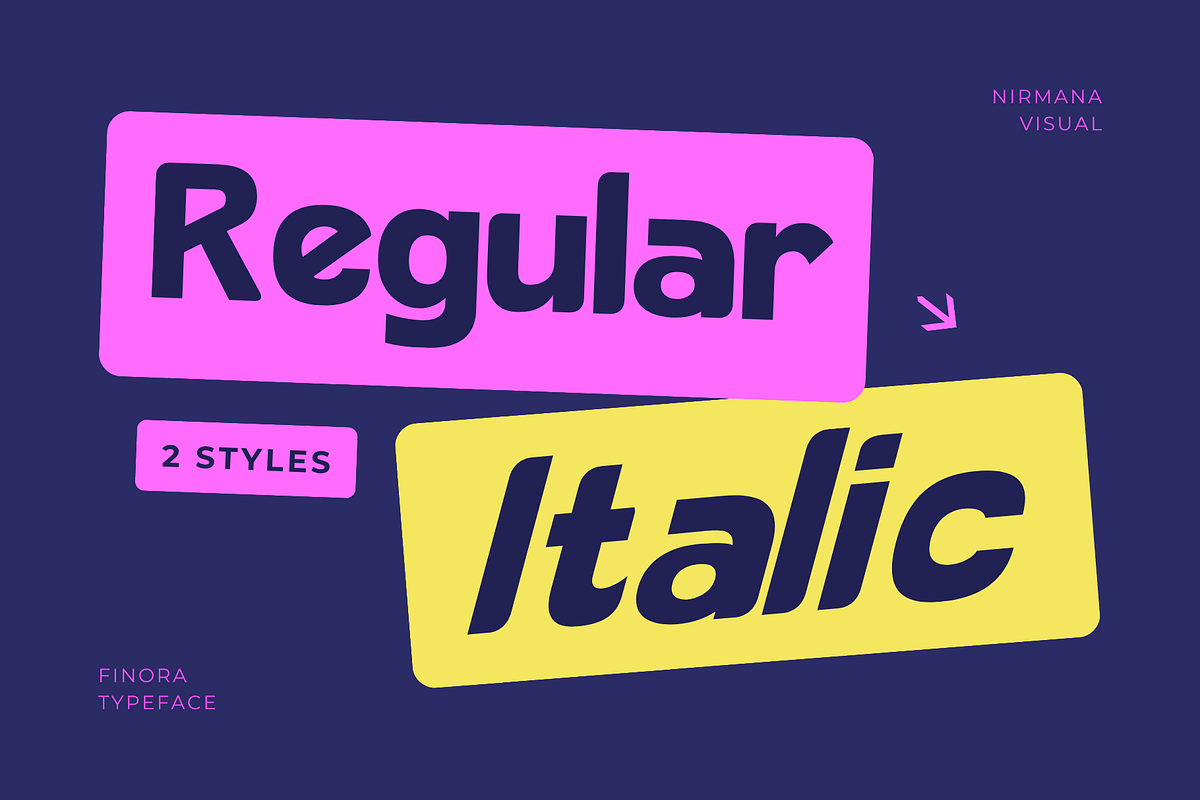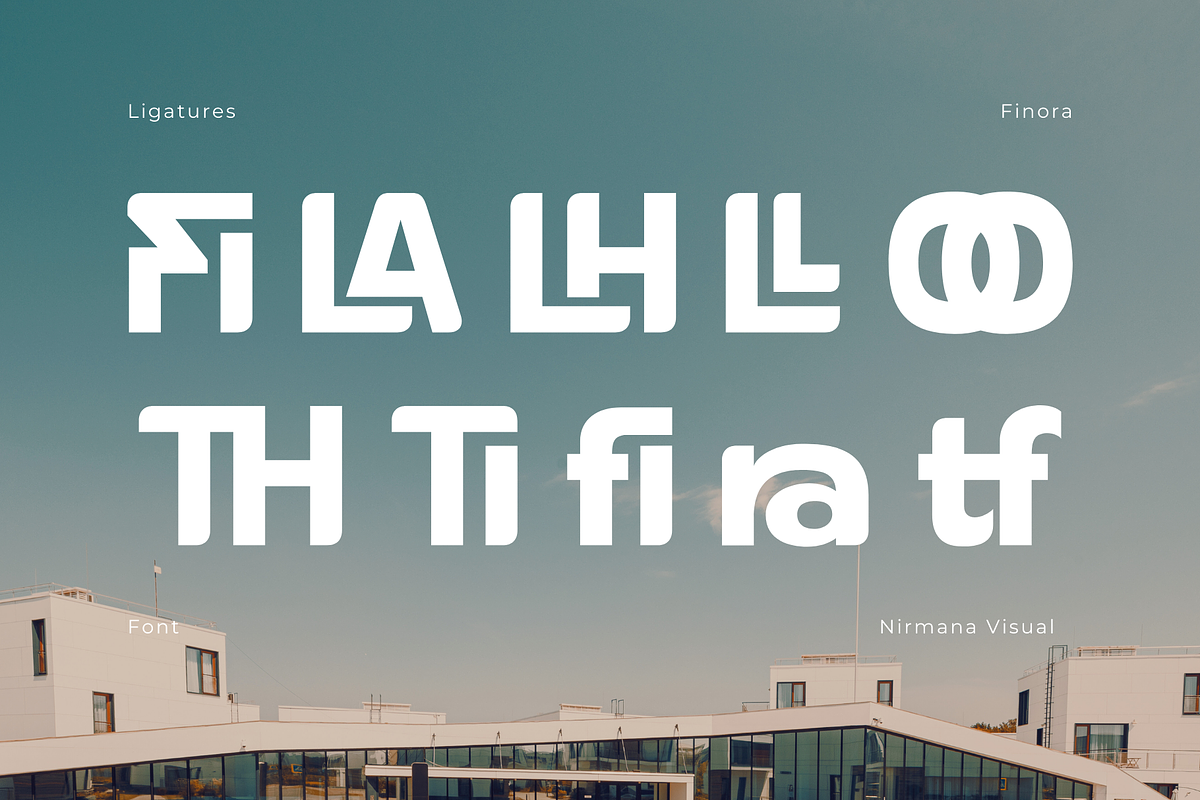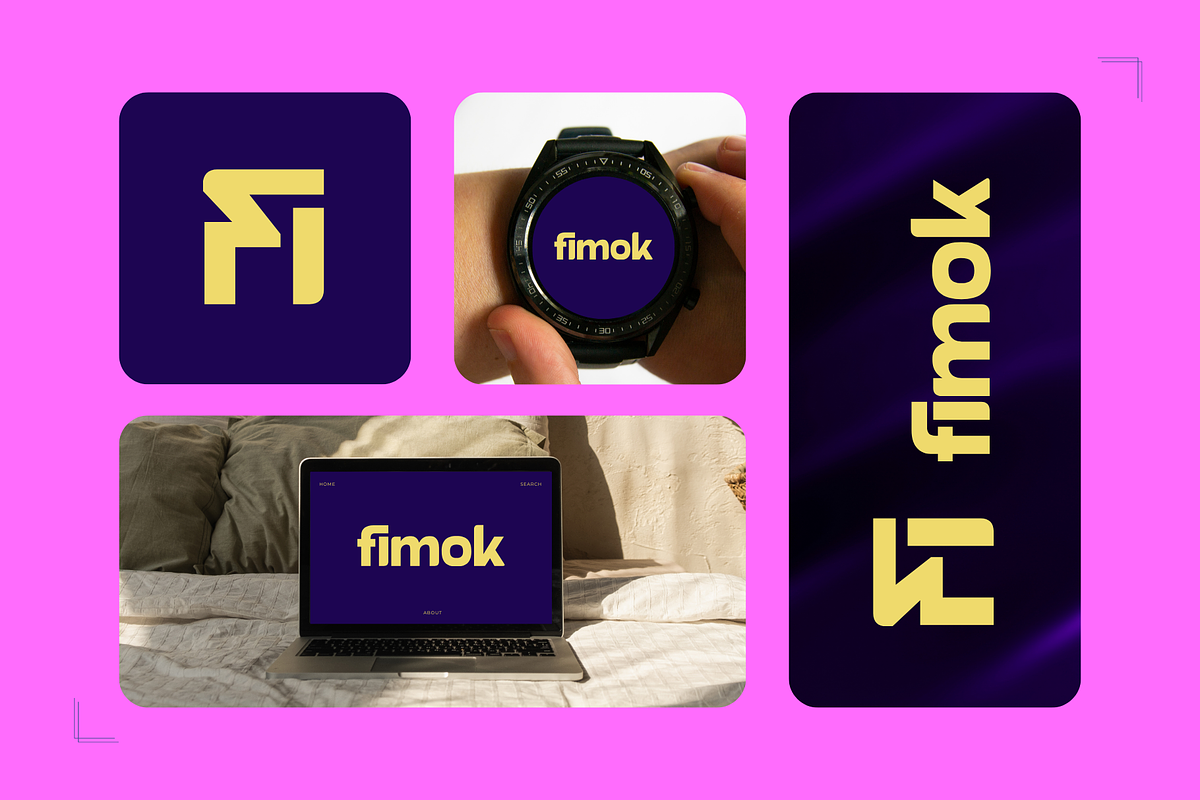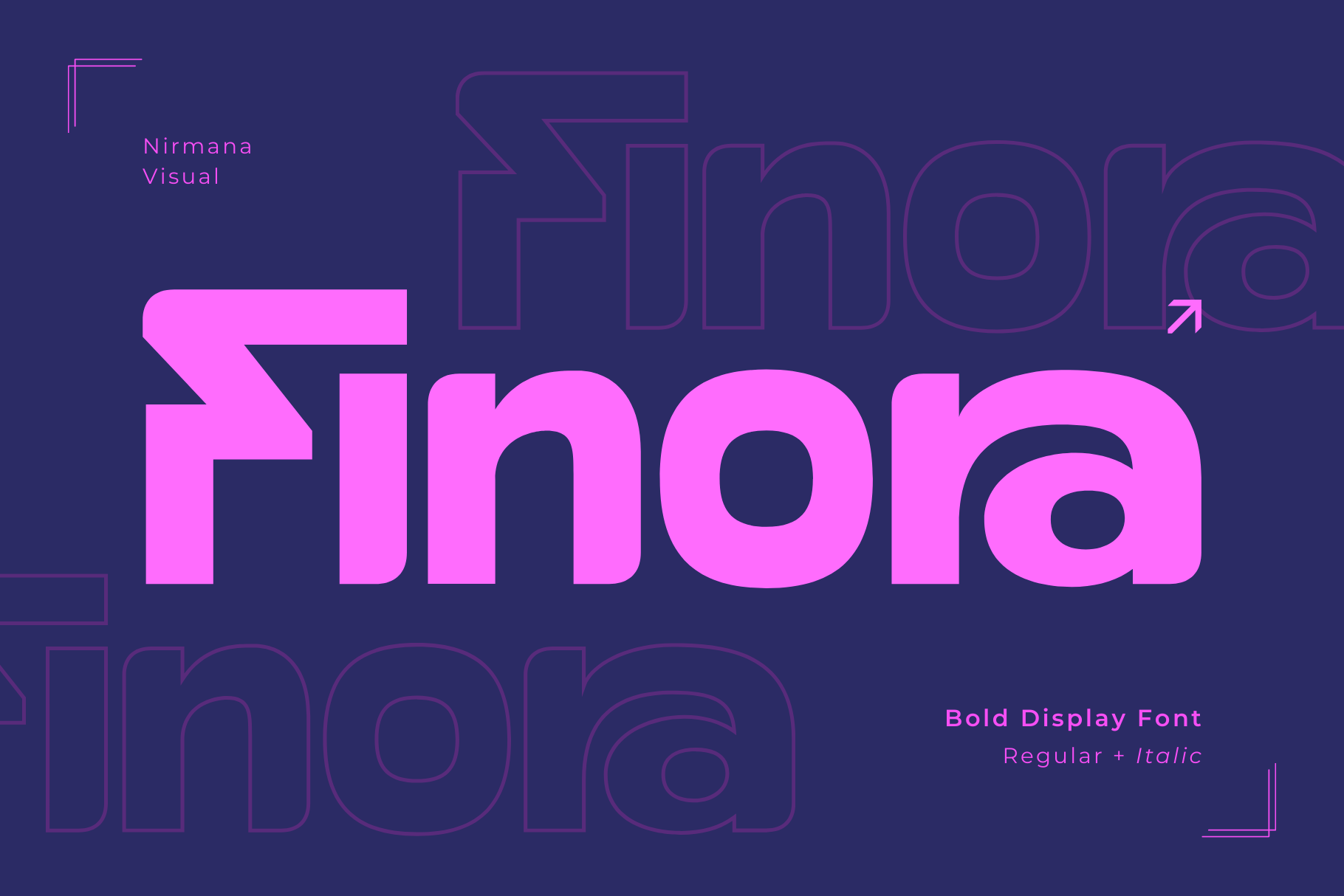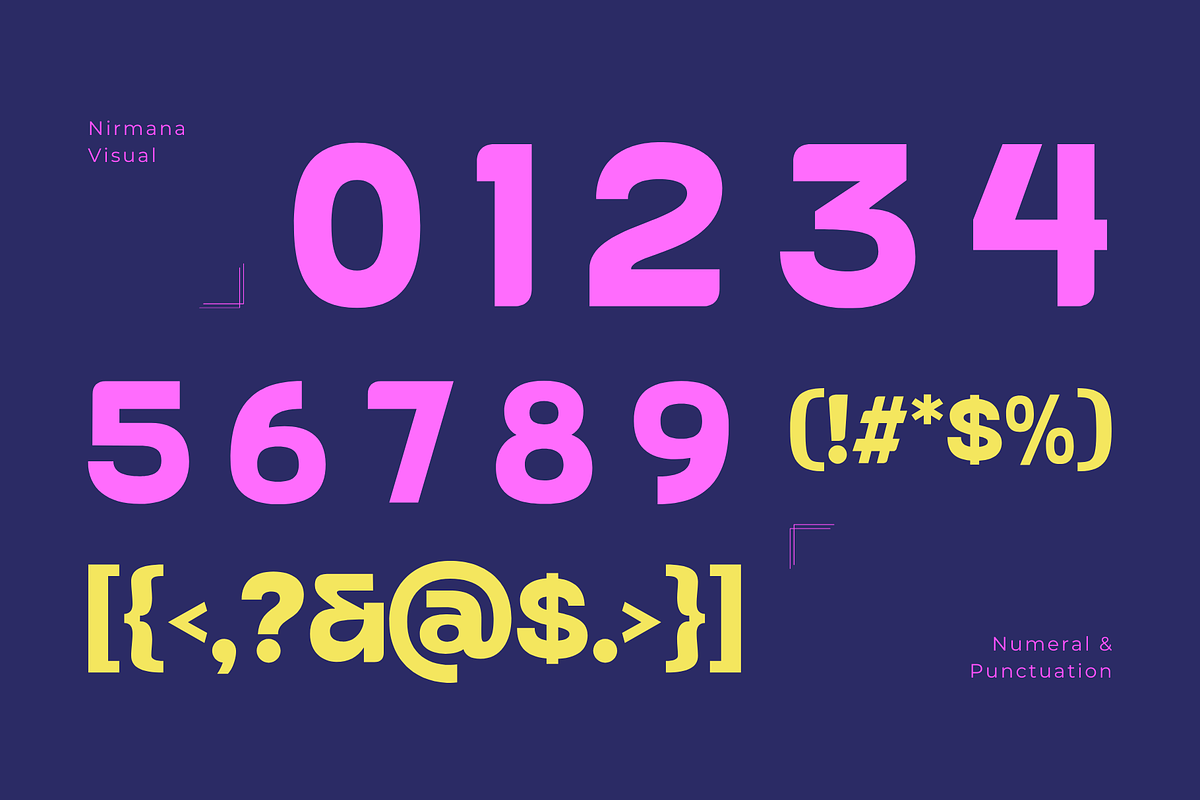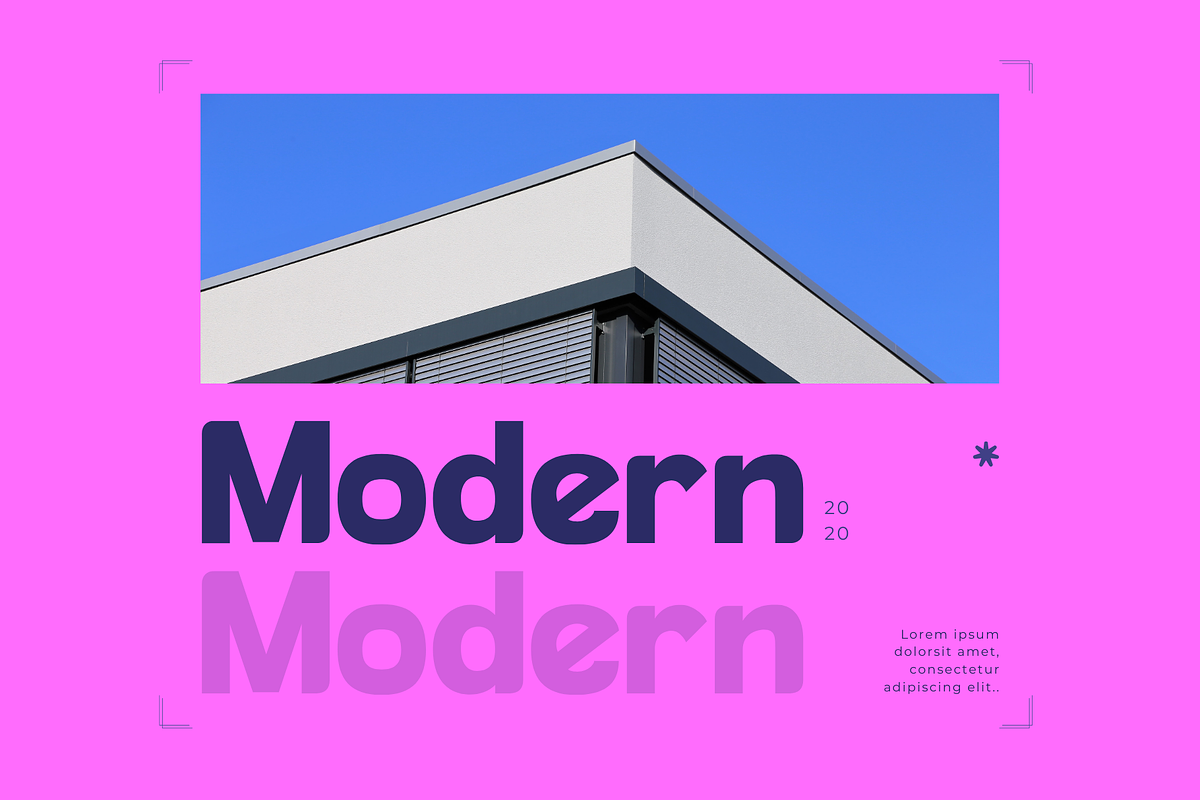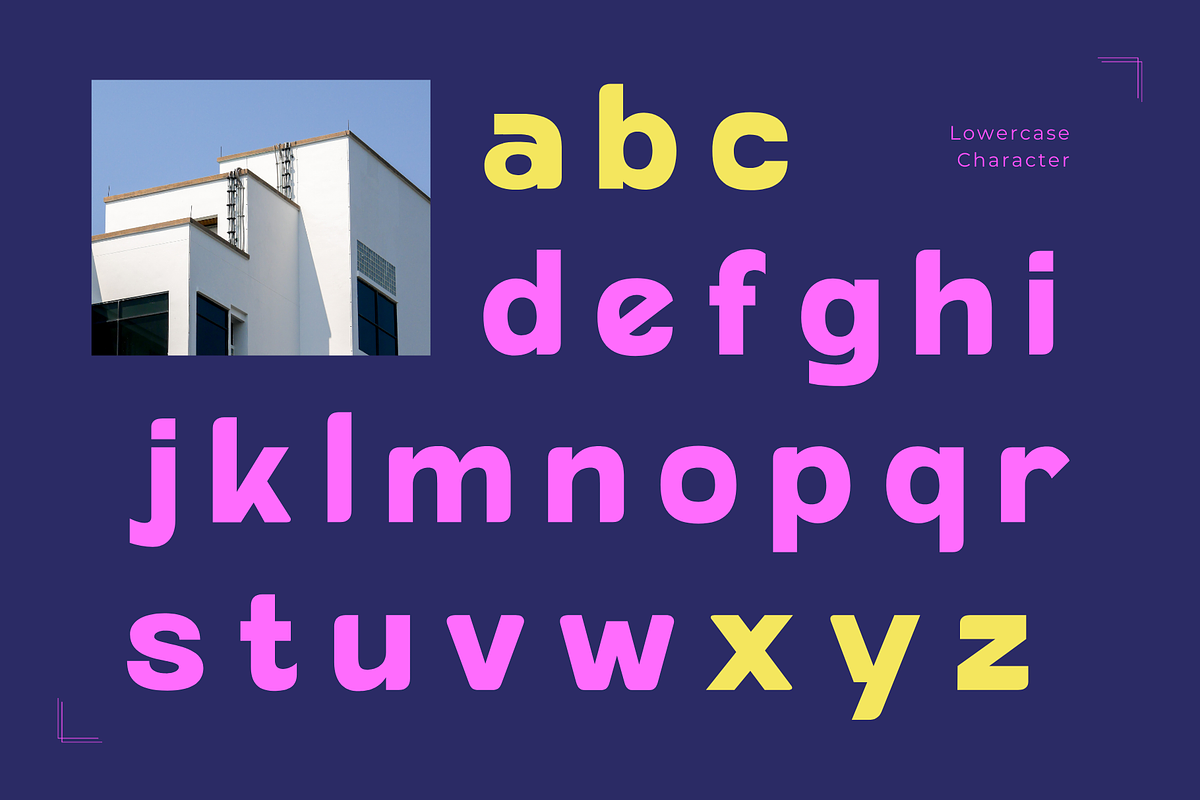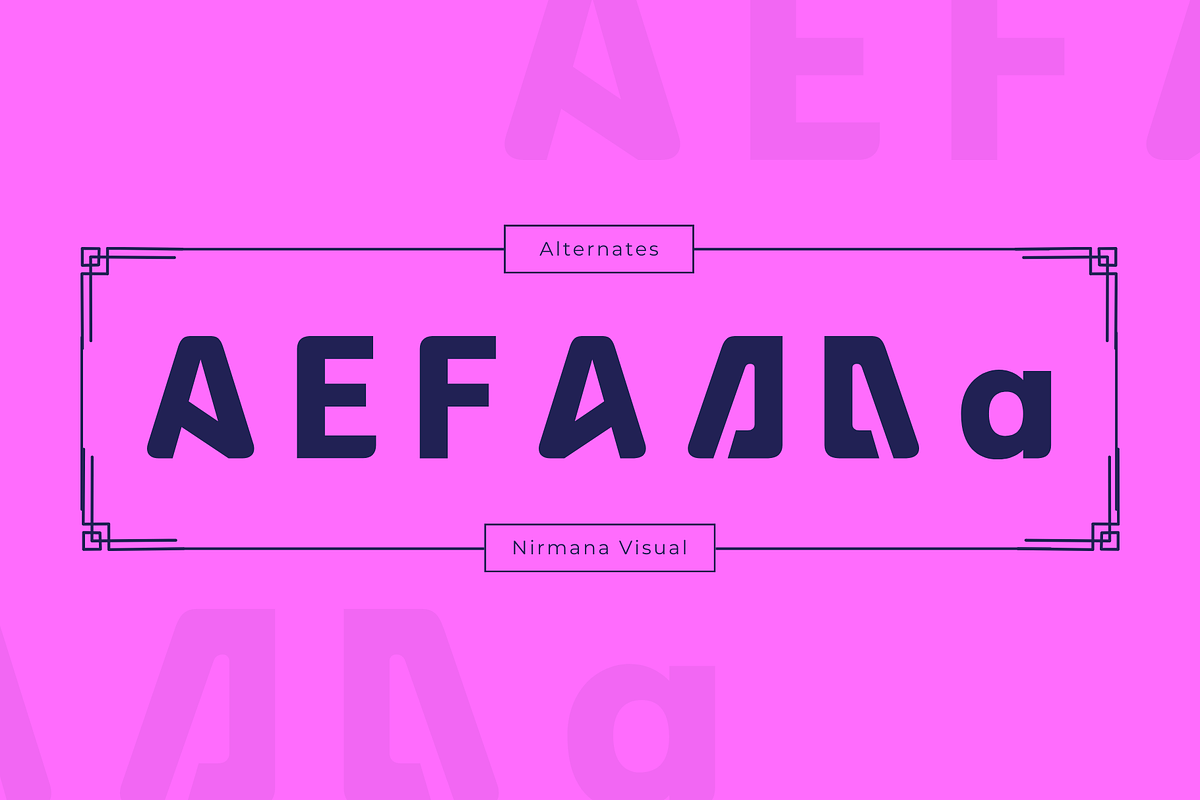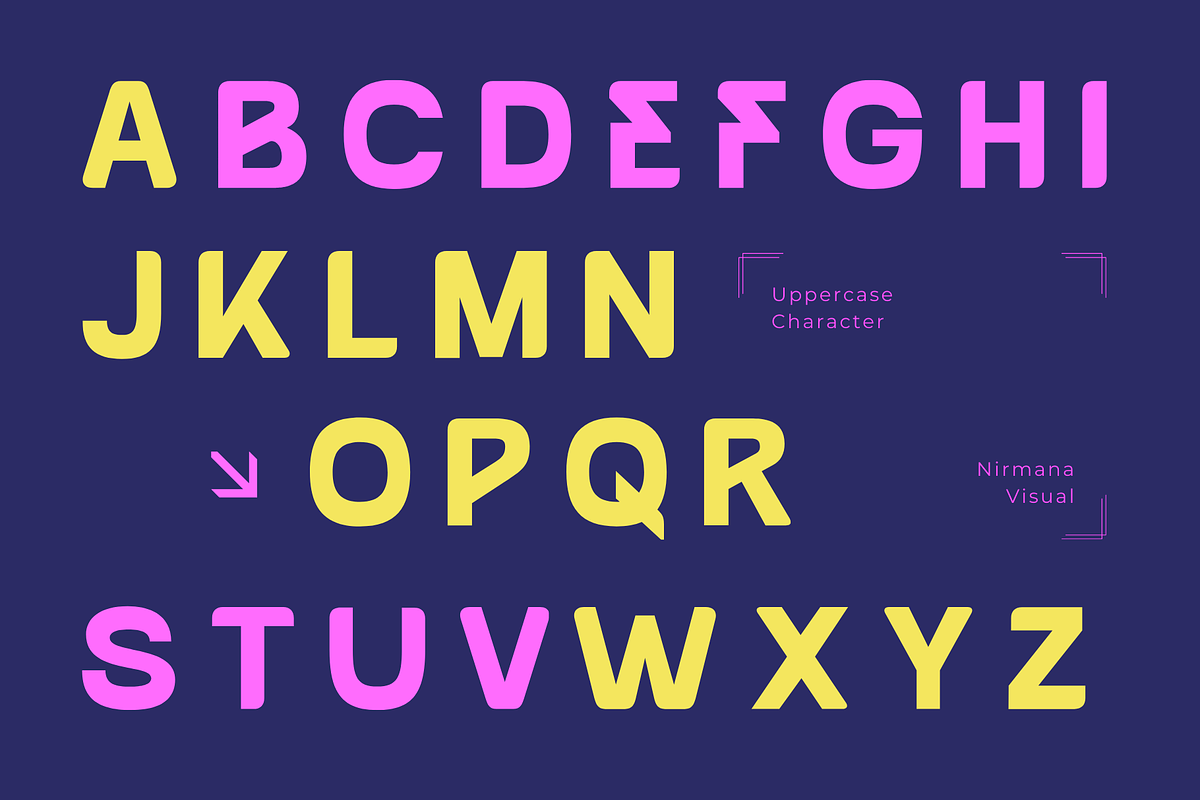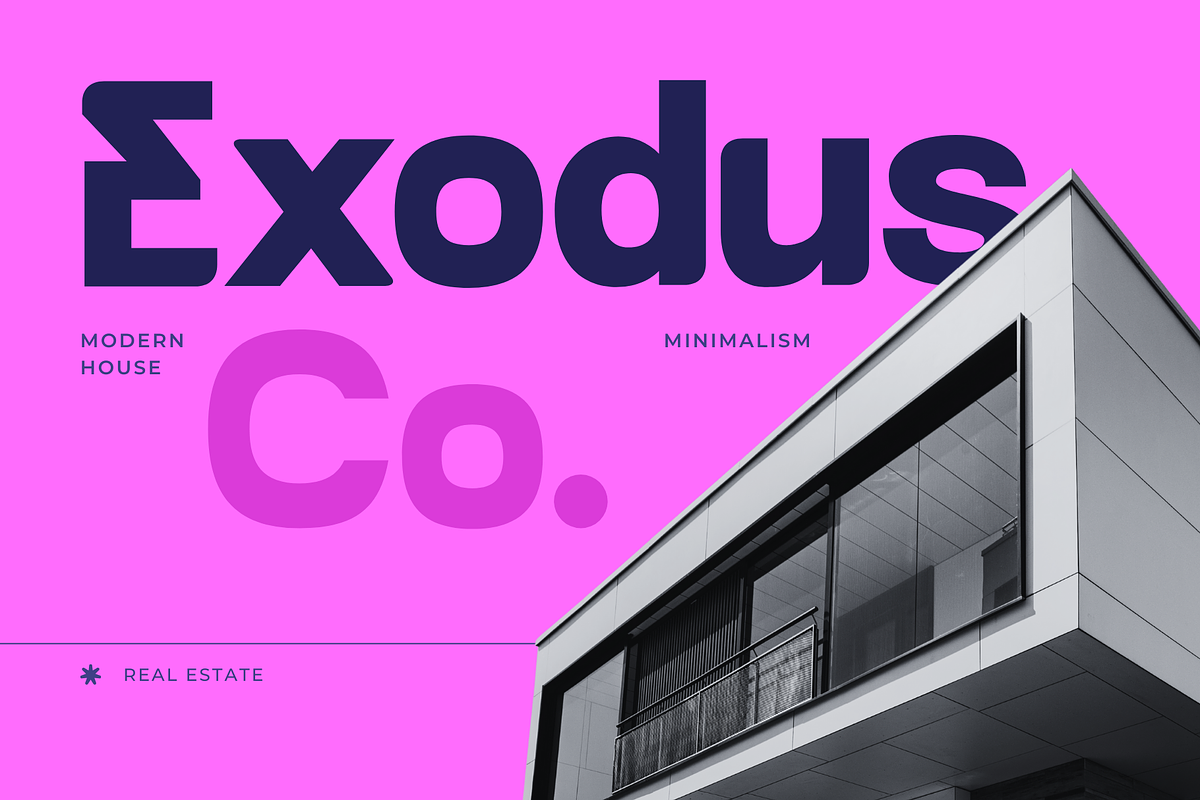
Finora -Branding Logo Font
Finora - Branding Logo Font
Finora is a stylish display font crafted for elegance and impact, perfect for logotypes, magazine titles, and high-end branding. With sleek lines, refined curves, and modern flair, Finora offers a collection of alternates and unique ligatures to elevate your design. Whether you're creating editorial layouts or standout brand marks, Finora adds a touch of sophistication and creativity that speaks with confidence and class.